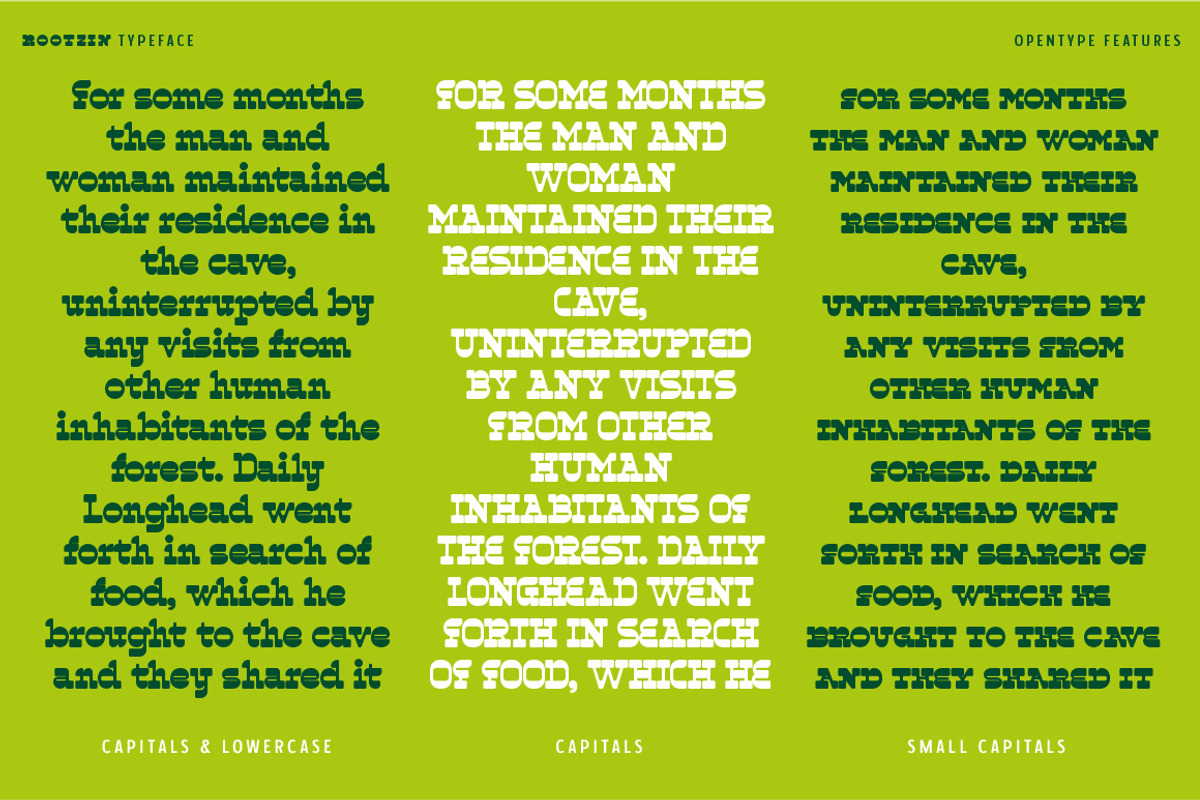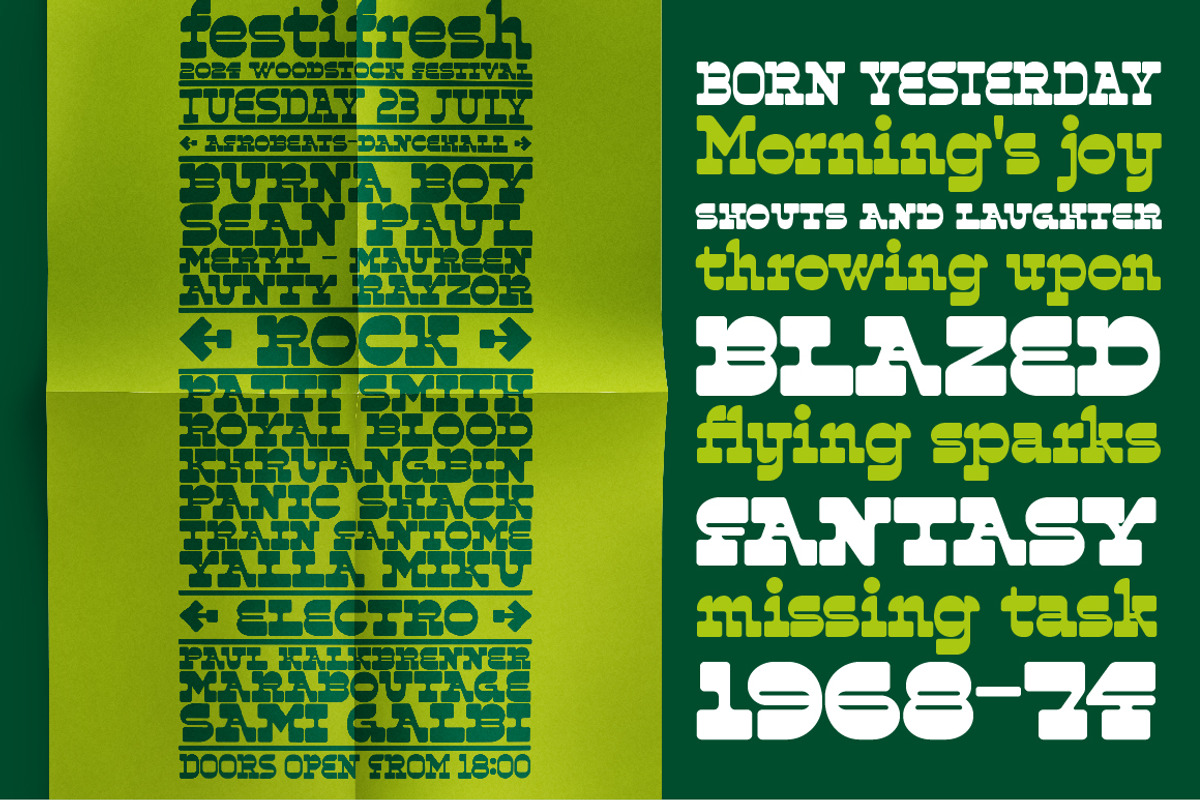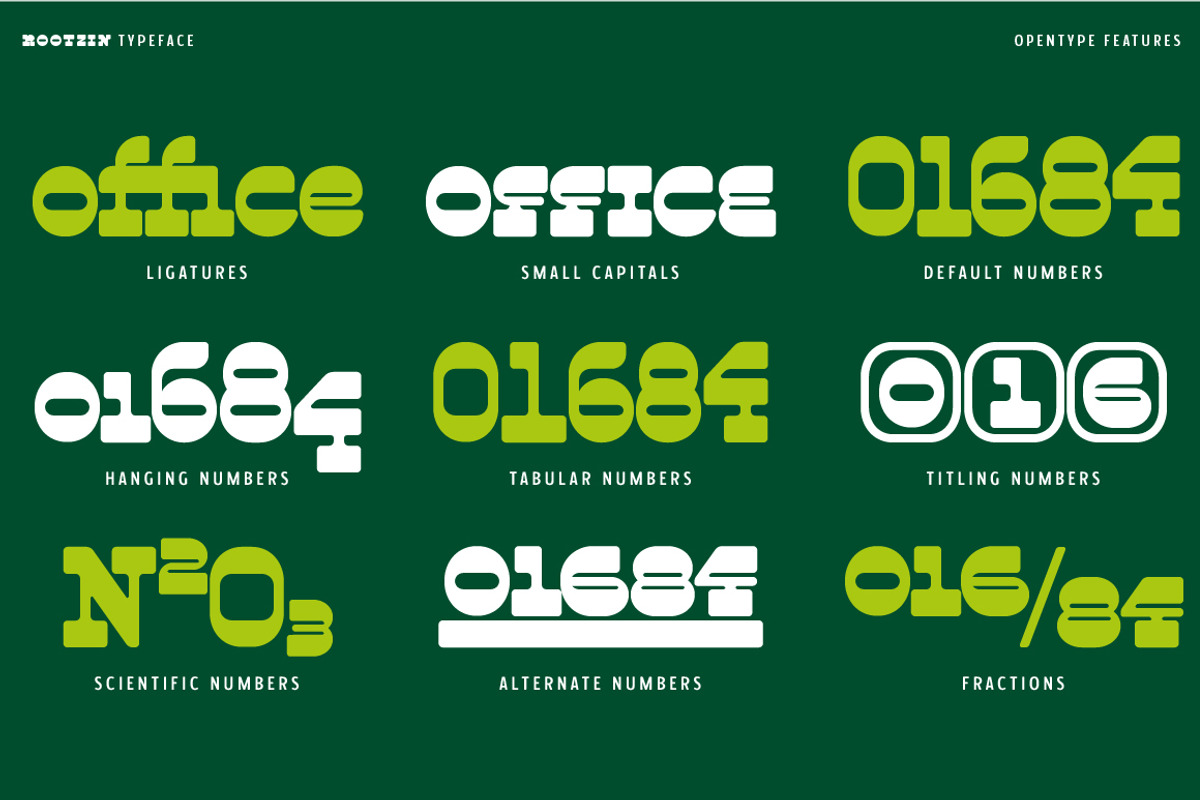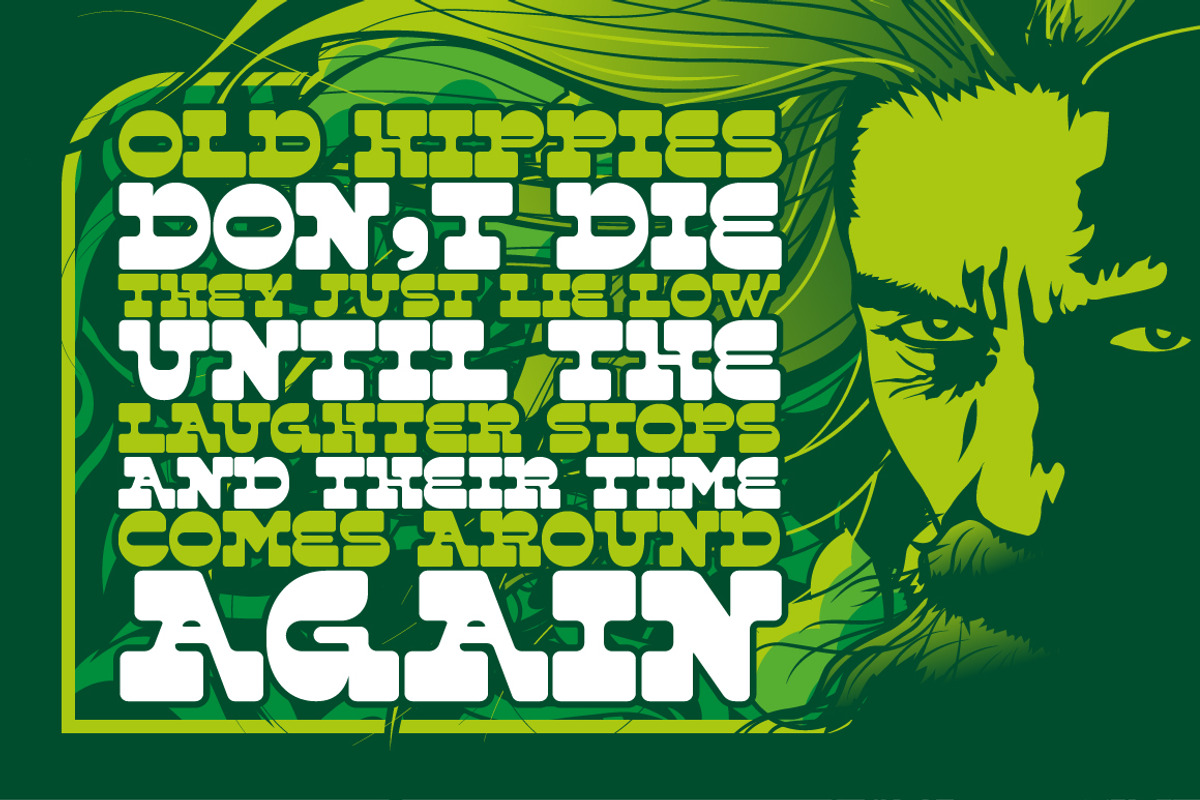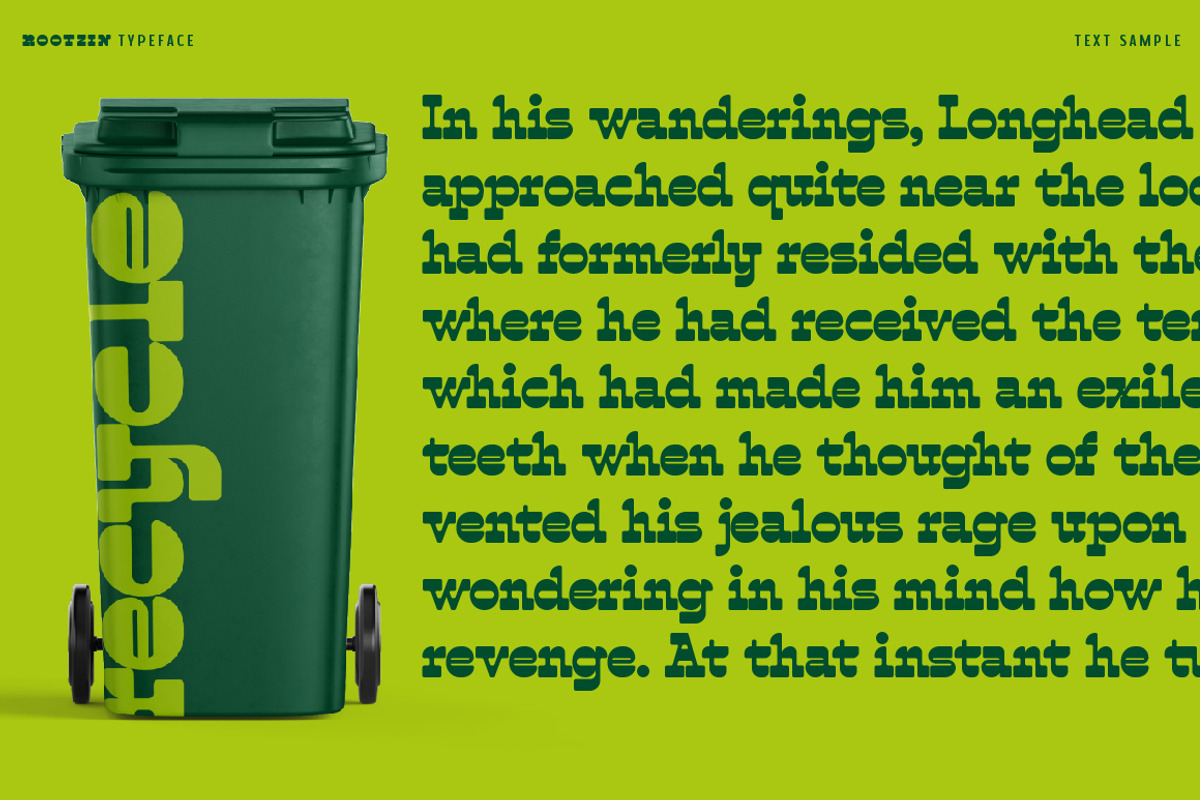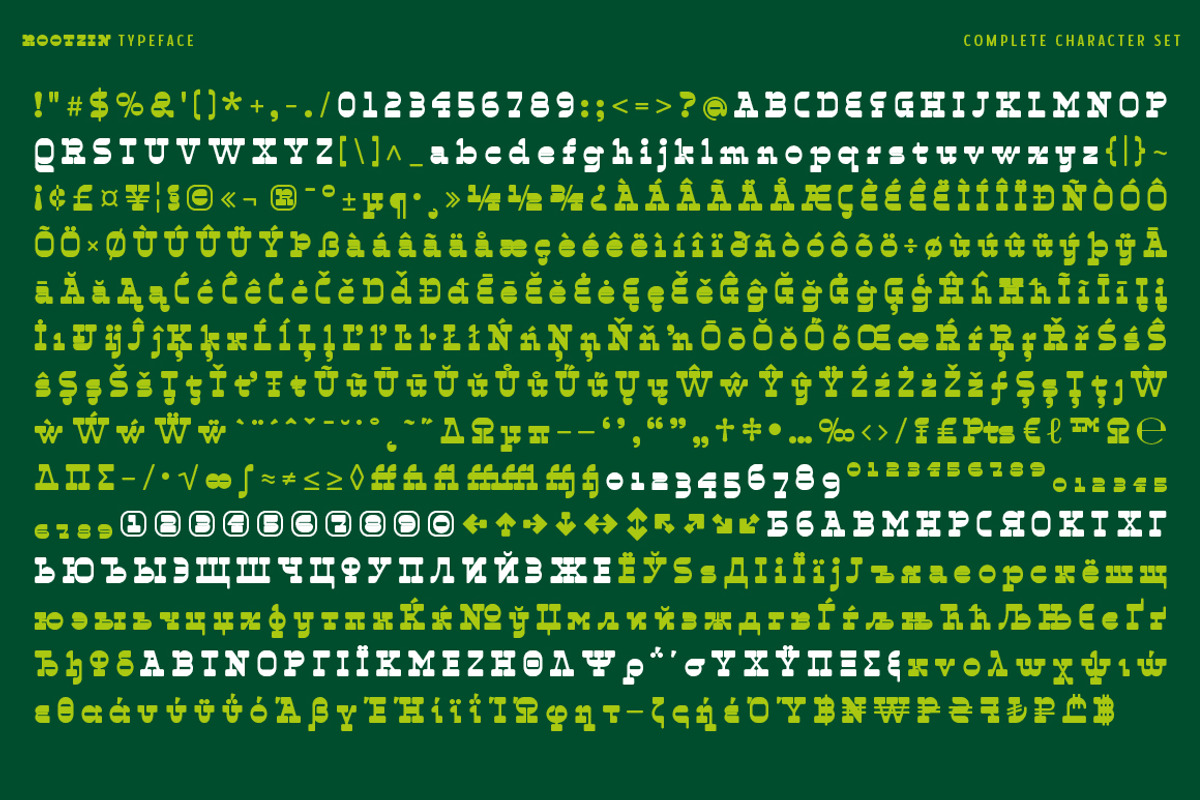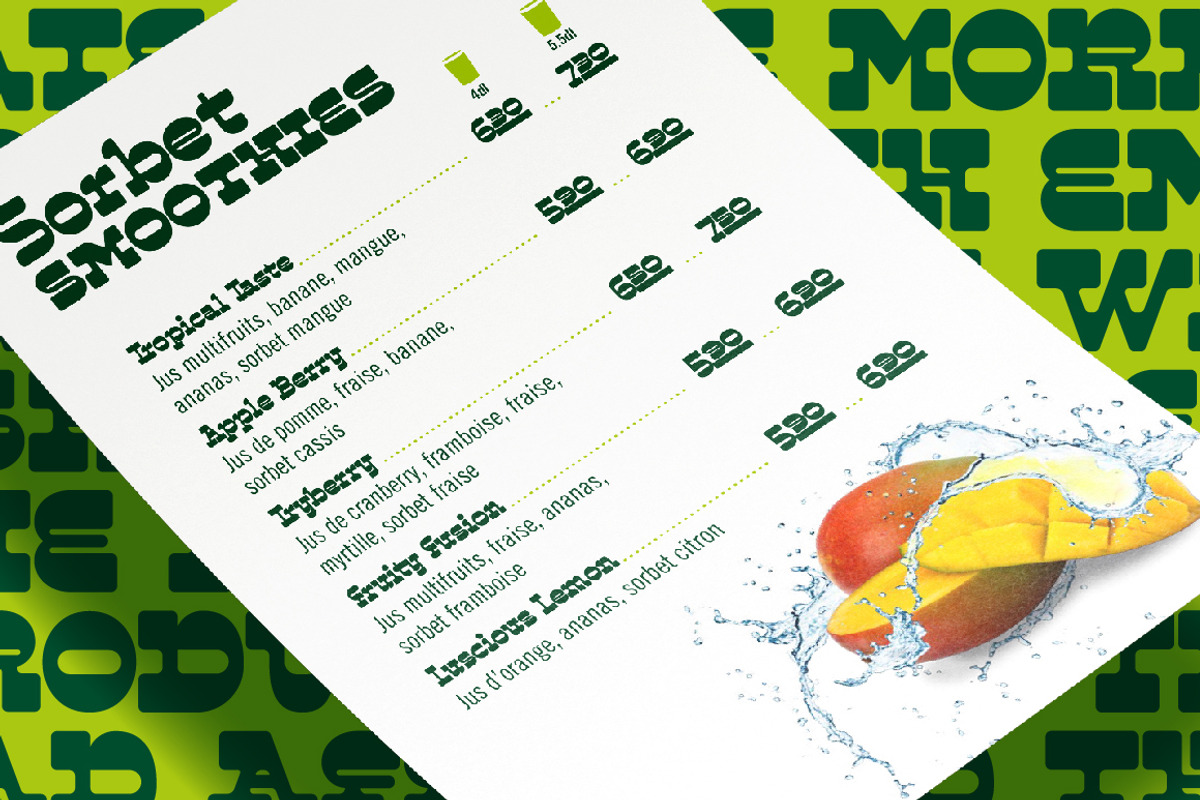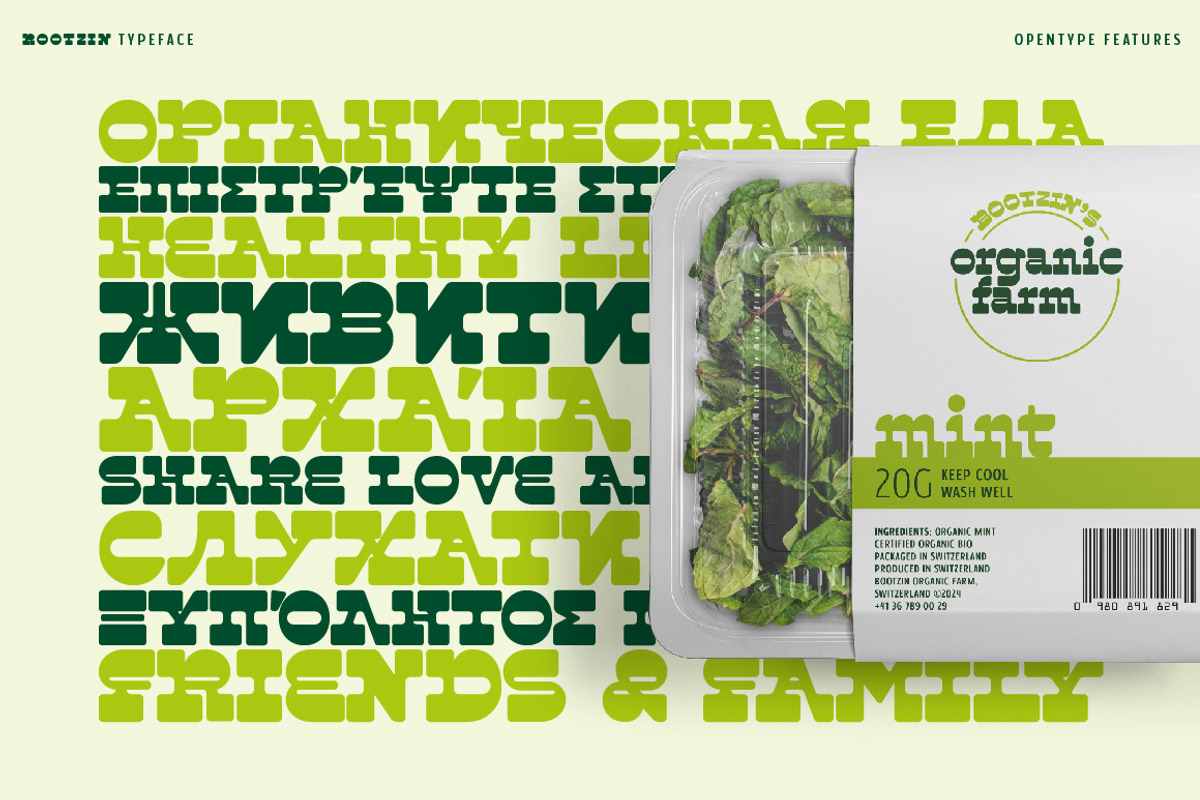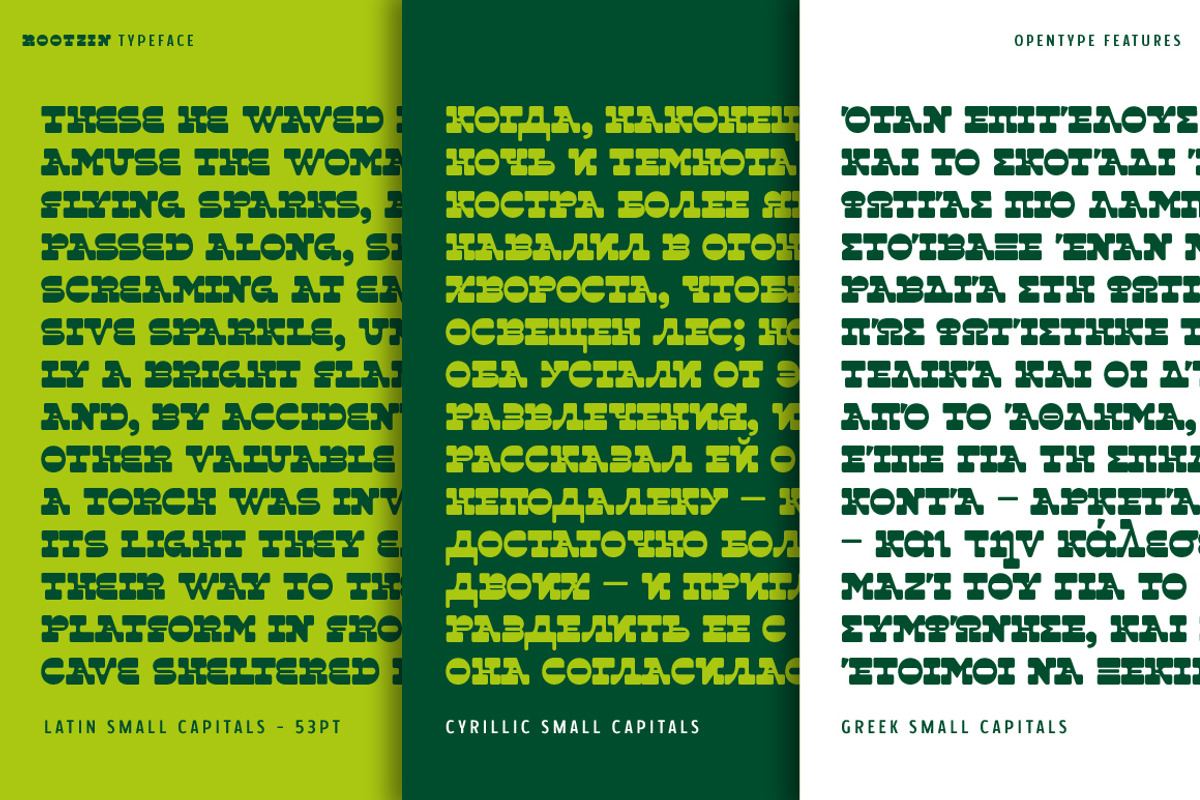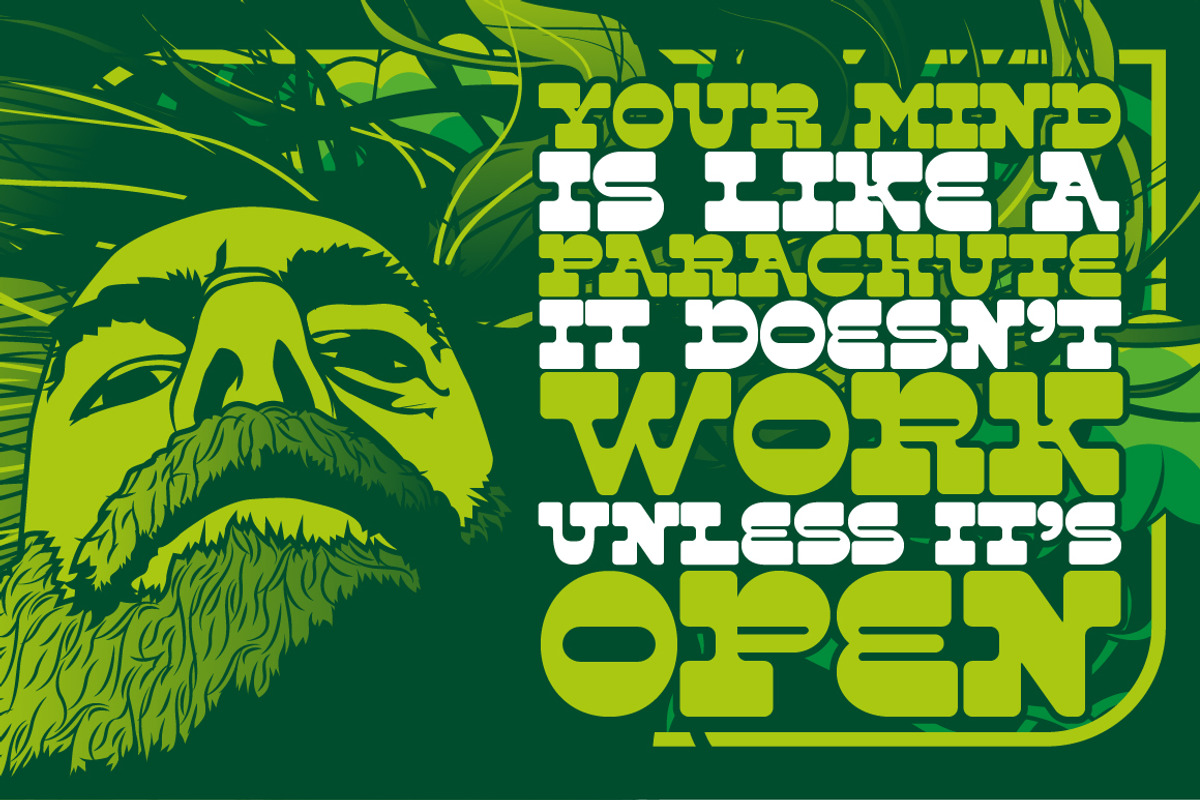
Rootzin
Rootzin is a reverse contrast slab serif typeface destined for headlines and use in large sizes. Despite being only one weight, the typeface exploits Opentype features to expand the layout solutions by offering a set of small capitals and a range of numeral styles that can add real flexibility to the design. With an expanded character set covering latin, Greek and Cyrillic, this typeface aims to be a bold voice that will grab attention.
Opentype features: Ligatures, Small capitals, Discretionary Ligatures, Alternates, Lining numerals, Hanging numerals, Tabular numerals, Scientific numerals, Titling numerals, Fractions, Arrows